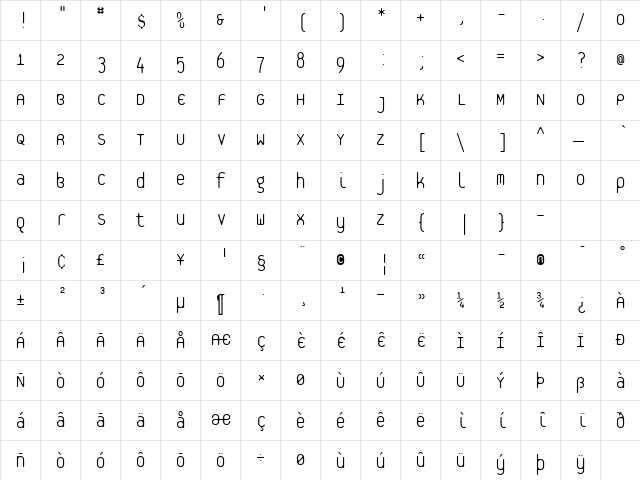
tsp 1979 2 Regular
Design Context for tsp 1979 2 Typeface
tsp 1979 2 takes a measured approach to typography — its balanced proportions and neutral character make it a reliable workhorse for both digital and print work.